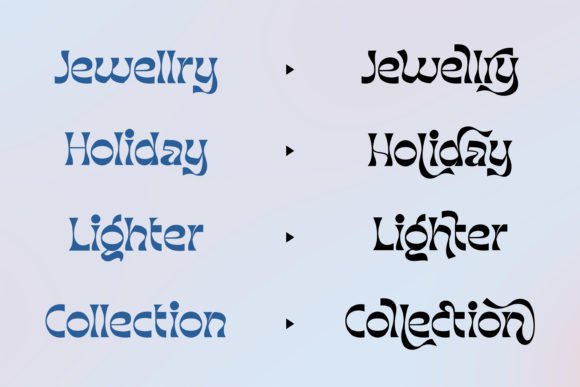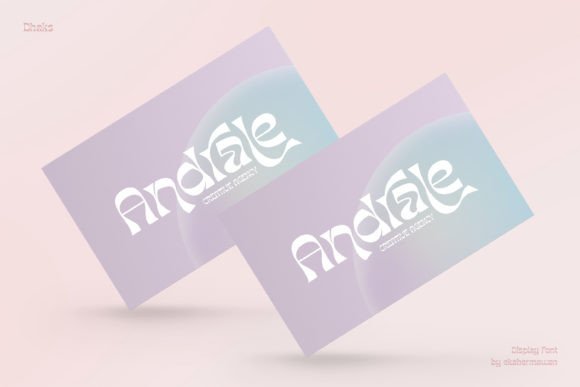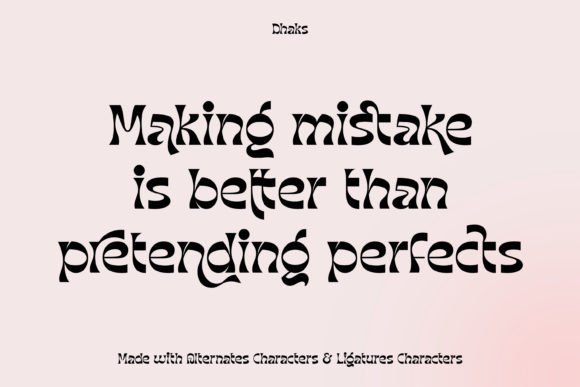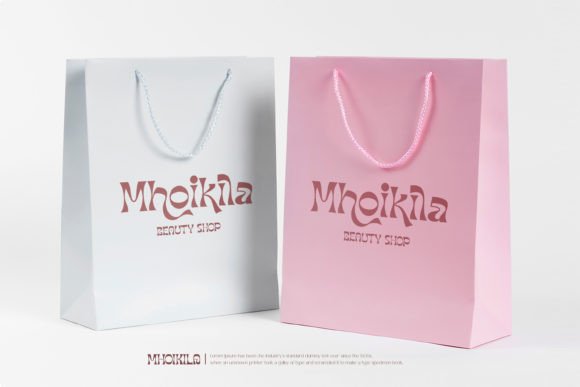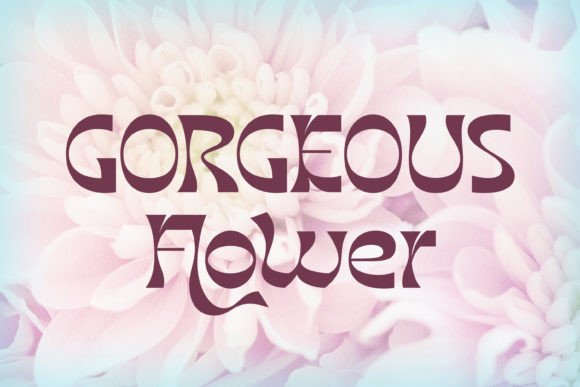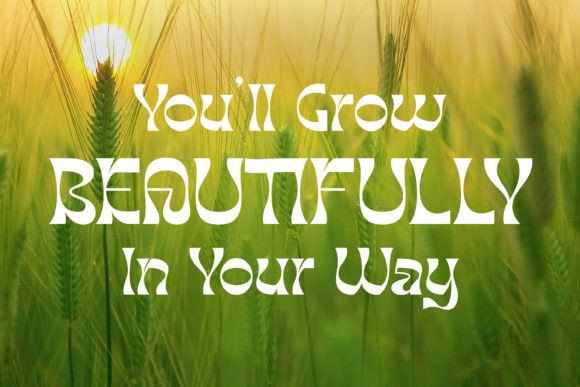
Introduction to Dhaks Font
As a designer, there’s nothing quite like the thrill of stumbling upon a new font that sparks creativity and inspires your next big project. And that’s exactly what happened when I discovered the Dhaks Font. This unique display font is a game-changer for anyone looking to add a touch of elegance and sophistication to their designs.
With its one-of-a-kind shape on each character, the Dhaks Font is a high-quality design resource that’s perfect for a wide range of creative projects. Whether you’re working on a logo design, branding, poster, or magazine, this font is sure to elevate your work to the next level. Plus, with a transparent background and free download option, it’s easy to incorporate into your designs without any hassle.
As a valuable addition to any designer’s toolkit, the Dhaks Font is a must-have for anyone looking to take their designs to new heights. Its versatility and unique aesthetic make it an ideal choice for everything from merchandise and invitations to advertising and quotes. So why not give it a try and see the amazing things you can create with the Dhaks Font?
Key Features of Dhaks Font
- High-quality, unique design suitable for creative projects, including posters, logos, and other design resources.
- Comes in a transparent background, making it easy to customize and integrate into various design elements.
- Includes a range of characters, including uppercase and lowercase letters, numbers, and special symbols, making it a versatile design resource.
- Designed with a clear, legible font style, ideal for use in various creative projects, from print materials to digital displays.
Honest Review: Dhaks Font
I recently came across the Dhaks Font, a high-quality design resource that caught my attention. The font offers a clean and modern aesthetic, perfect for a creative project that demands sophistication. Upon further inspection, I was pleased to find that the font is available for free download, making it an excellent choice for designers on a budget.
Here are some of the things that work well with the Dhaks Font:
- ✨ Elegant and refined design, suitable for a wide range of creative projects
- ✨ Transparent background, allowing for easy customization and integration with other design elements
- ✨ High-quality typography, with clear and legible lettering
- ⚠️ Limited character set, which may not be suitable for projects that require a wide range of special characters
- ⚠️ Not ideal for projects that require a bold or condensed font style
Overall, I was impressed with the Dhaks Font’s clean design and high-quality typography. While it may not be the most versatile font, it’s an excellent choice for designers who want a sophisticated and elegant font for their creative project. If you’re looking for a reliable design resource, the Dhaks Font is definitely worth considering.
Dhaks Font is perfect for creating eye-catching headings, titles, and quotes for your design projects. It’s also great for creating social media graphics, blog posts, and presentations. With its high quality design and transparent background, Dhaks Font is a versatile design resource that can be used in a variety of creative projects.
Tips for Getting the Most Out of Dhaks Font
To get the most out of Dhaks Font, experiment with different font sizes, colors, and styles to create a unique look for your design project. You can also combine Dhaks Font with other design elements, such as graphics and images, to create a visually appealing design. With its free download option, you can try out Dhaks Font in your next creative project and see the difference it can make.